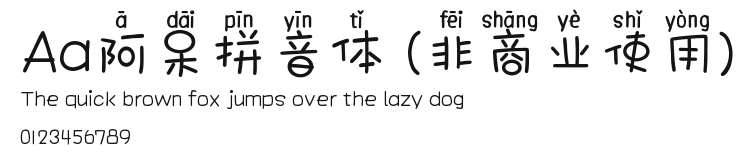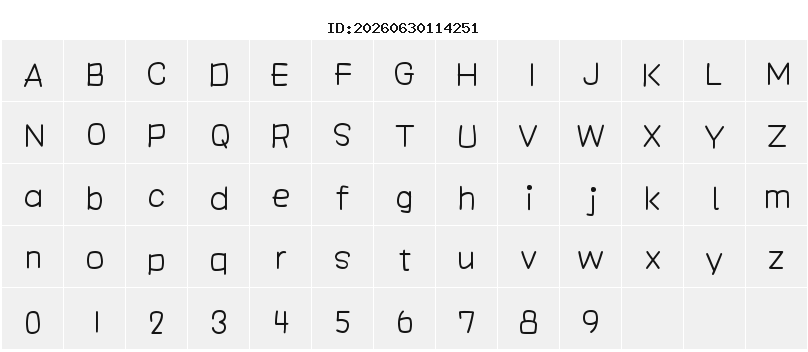
Aa阿呆拼音体 (非商业使用) Preview
• Font Name: Aa阿呆拼音体 (非商业使用)
• Font Style: 常规
• Full Font Name: Aa阿呆拼音体 (非商业使用)
• Character Count: 12063
• Designer: Aa
• Manufacturer: 翰美互通(厦门)科技有限公司
• Description: AaAdaidepinyin (Non-Commercial Use) is a fantastic font with excellent features designed for user interfaces and electronic communications.
About Aa阿呆拼音体 (非商业使用).ttf
Aa阿呆拼音体 (非商业使用).ttf is a modern, elegant sans-serif font designed for ultimate readability and visual harmony. Perfect for branding, headlines, web design, and print materials.